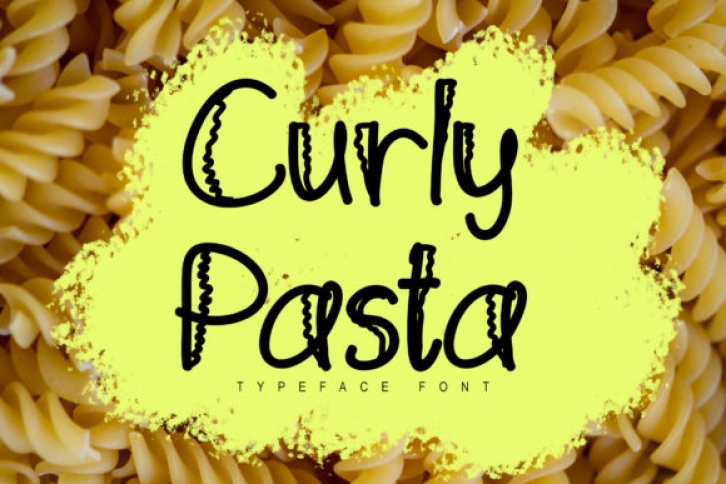
Curly Pasta is an unique display font. Whether you’re using it for crafting, digital designing, presentations, or greeting card making, it’s perfect!
Fall in love with its incredibly versatile style and use it to create spectacular designs!